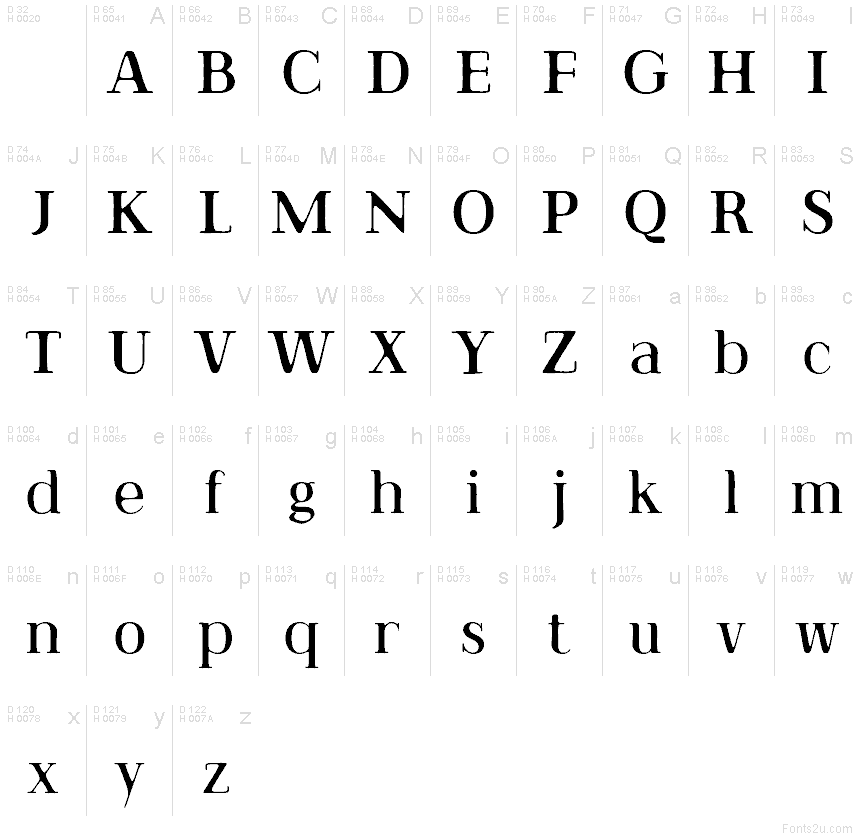
RipeteDrawn-Regular Demo
Ripete Drawn font by Craft Supply Co. is a classic serif font with elegant, refined curves. It combines professionalism with sophistication so that it can be used in arts as well as in business and corporate settings. The medium contrast in strokes adds to the stylish glyphs’ appearance and makes for the perfect harmonious balance.